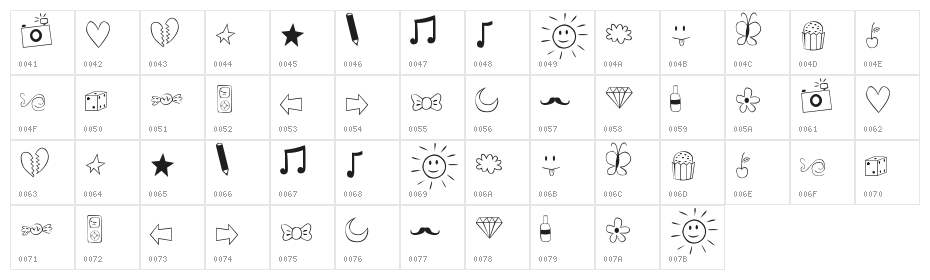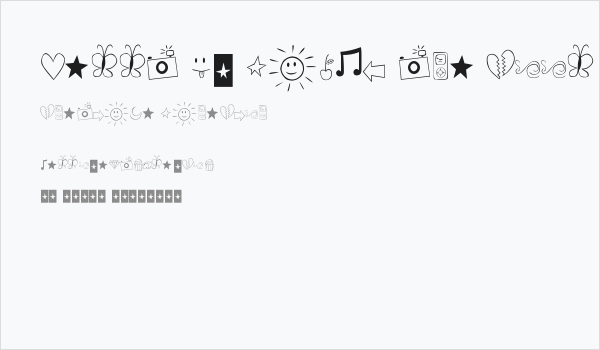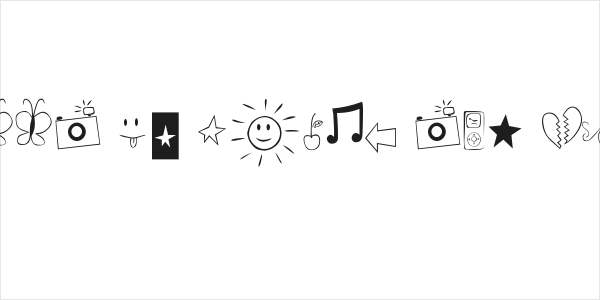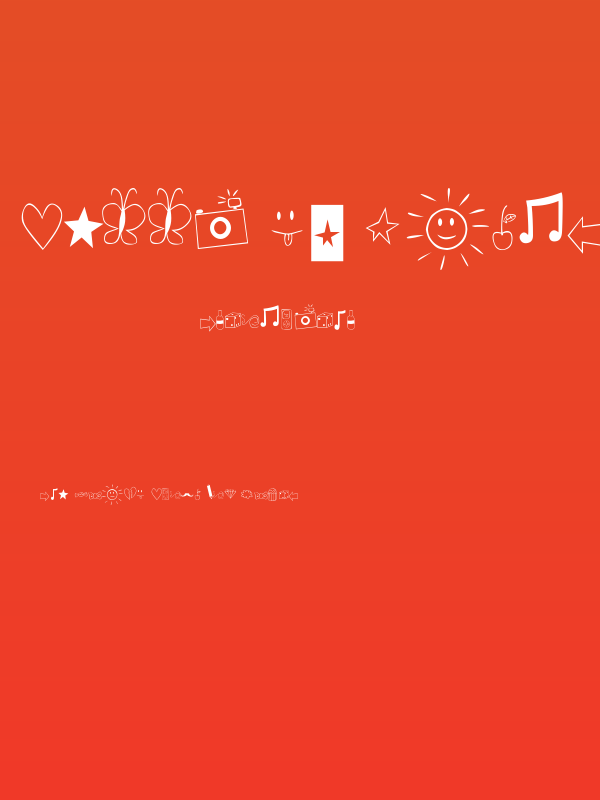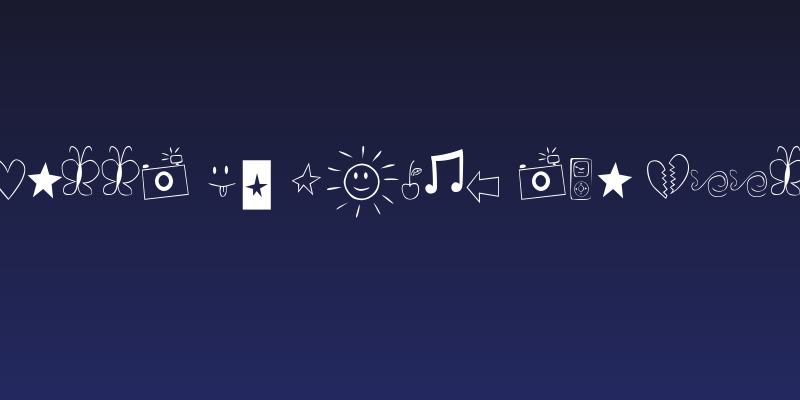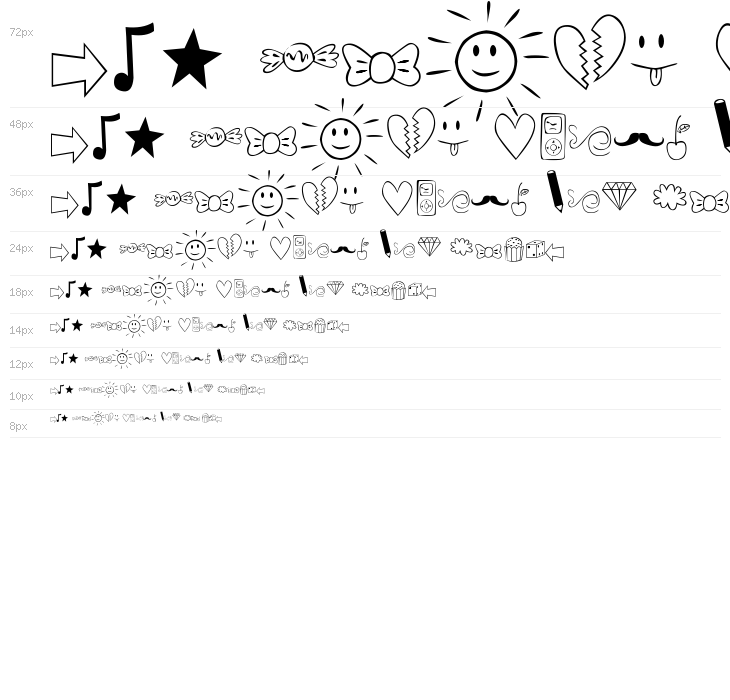
Bella K. Dings Are Cool Font
Bella K. Dings Are Cool Description
This collection features a playful assortment of dingbat-style icons, each with a whimsical and hand-drawn aesthetic. The icons include a variety of everyday objects and symbols such as cameras, hearts, stars, music notes, and more, each rendered with a charming simplicity. The style is consistent across all icons, with clean lines and a balanced use of positive and negative space, making them versatile for various design applications. The icons are presented in both outlined and filled styles, offering flexibility in their use. This set is perfect for adding a touch of fun and creativity to any project.
| Overall Style | Whimsical and playful |
| Use Case | Decorative elements, branding, creative projects |
| Proposed Projects | Ideal for creative projects like greeting cards, scrapbooking, children's books, and playful branding materials. |